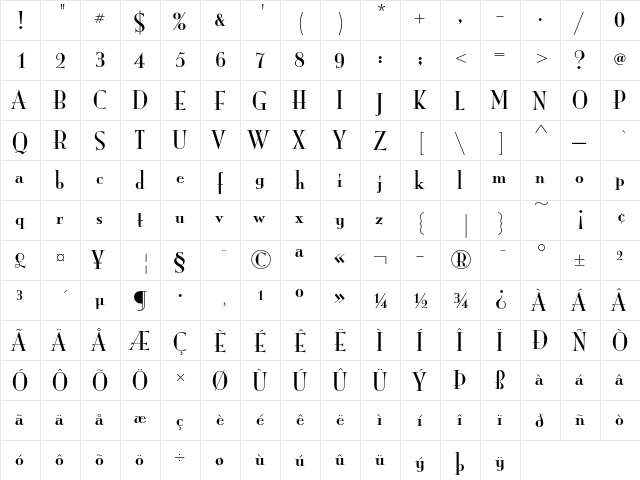
ITC Mona Lisa Solid
Design Context for ITC Mona Lisa Typeface
ITC Mona Lisa offers clean, dependable letterforms without strong stylistic allegiance, making it a practical choice for designers who need flexibility.
Pro Tip: Use ITC Mona Lisa in both headline and body roles to test its range before committing to a single application.